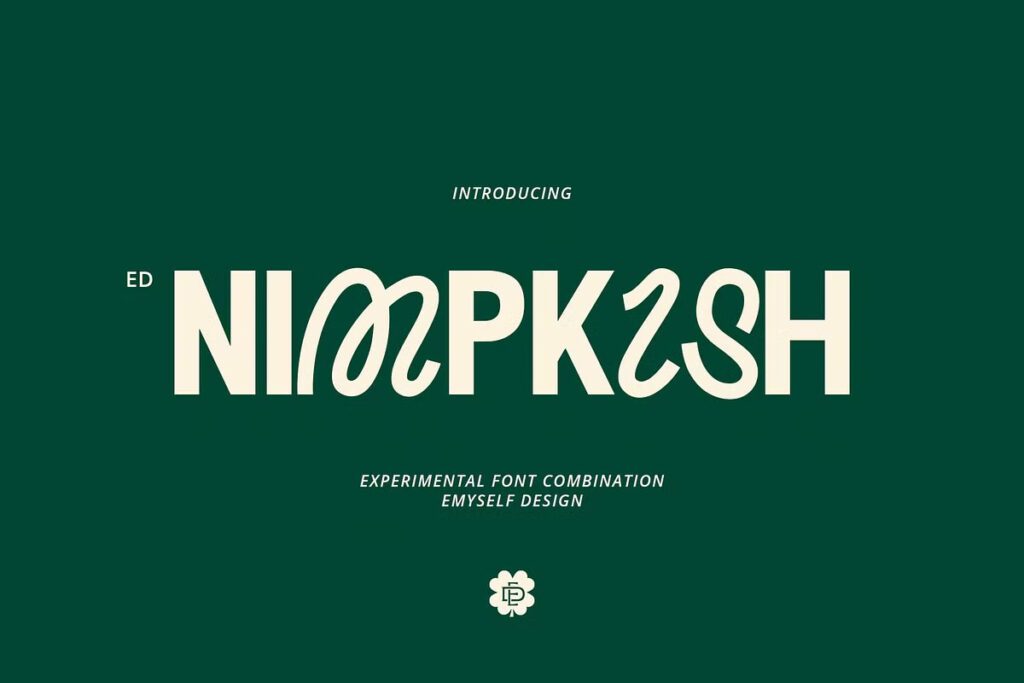
ED Nimpkish – Combination Typeface: Unique, Versatile, and Creative
If you’re searching for a typeface that combines creativity with versatility, the ED Nimpkish Combination Typeface is the perfect solution. This experimental font brings together two distinct styles in one, offering designers an eye-catching and bold option for a wide range of design projects. Whether you’re working on logos, posters, or social media designs, ED Nimpkish delivers a unique look with plenty of creative potential.
What is ED Nimpkish Typeface?
The ED Nimpkish Typeface stands out because it blends two completely different styles into one font. This combination creates a truly unique visual experience, offering a bold, experimental aesthetic perfect for modern design needs. With features such as alternative characters, ligatures, and multi-language support, ED Nimpkish makes designing easier and more fun.
Key Features of ED Nimpkish Typeface
Combination of Styles:ED Nimpkish includes two fonts that differ in style and appearance but complement each other beautifully. This fusion makes it an experimental and versatile typeface for designers looking to make a statement.
357 Total Glyphs:With 357 total glyphs, this typeface offers a wide range of characters, including uppercase display fonts and lowercase sans fonts, allowing for flexibility in your designs.
Stylistic Sets & Ligatures:ED Nimpkish is equipped with stylistic sets and ligatures, providing even more customization options. This makes it easy to add a creative and unique flair to your designs.
Multi-Language Support:ED Nimpkish supports multiple languages, making it suitable for a global audience. This is especially beneficial for brands or projects with an international reach.
Ideal for Various Design Projects:Whether you’re working on a poster, logo, branding, book cover, magazine layout, or social media design, ED Nimpkish is versatile enough to handle it all.
How to Use ED Nimpkish Typeface in Your Designs
Thanks to its combination of styles, ED Nimpkish can be used across various design projects:
Logo Design: Make your logos stand out with ED Nimpkish’s unique character combinations.
Posters & Branding: Its bold, experimental look is perfect for creating attention-grabbing posters and building memorable brand identities.
Social Media Graphics: Add a creative edge to your social media visuals by incorporating ED Nimpkish’s alternative characters and stylistic sets.
Why Choose ED Nimpkish Typeface?
Uniqueness: ED Nimpkish’s combination of two distinct font styles allows your designs to stand out from the crowd.
Flexibility: With hundreds of glyphs, ligatures, and multi-language support, this font gives you the flexibility to be as creative as you want.